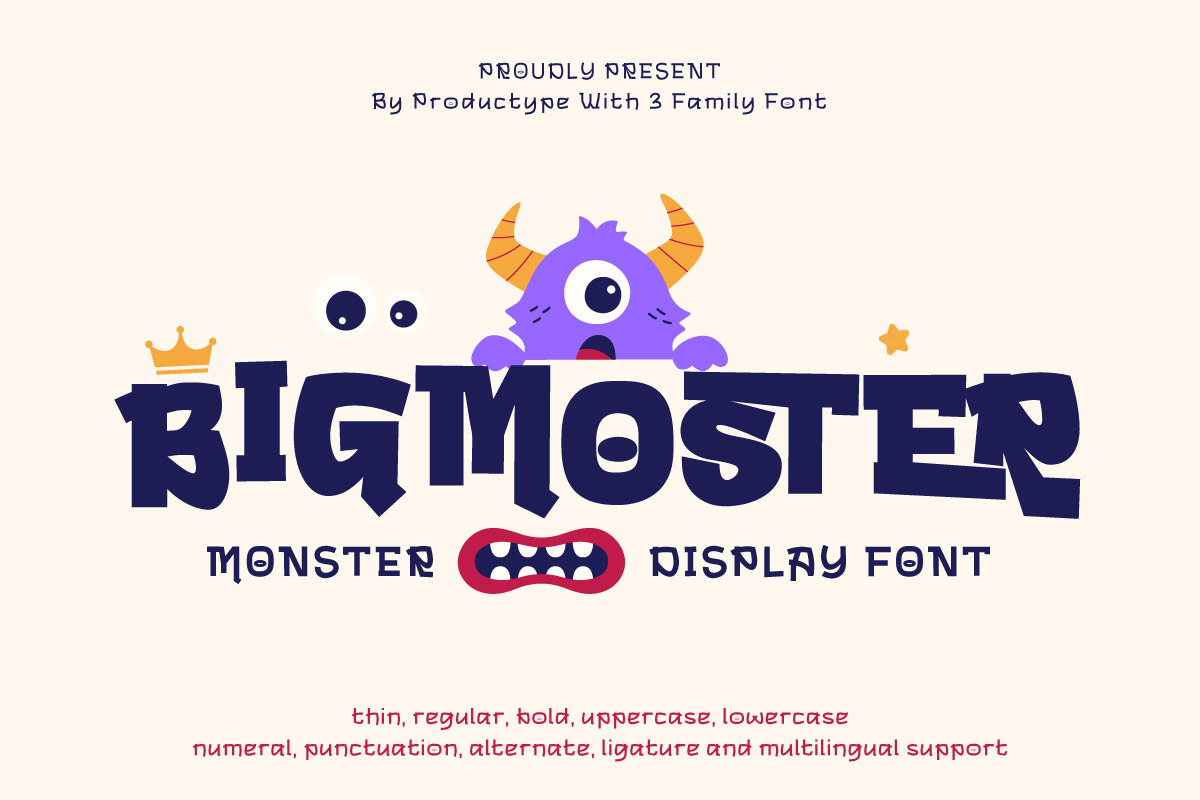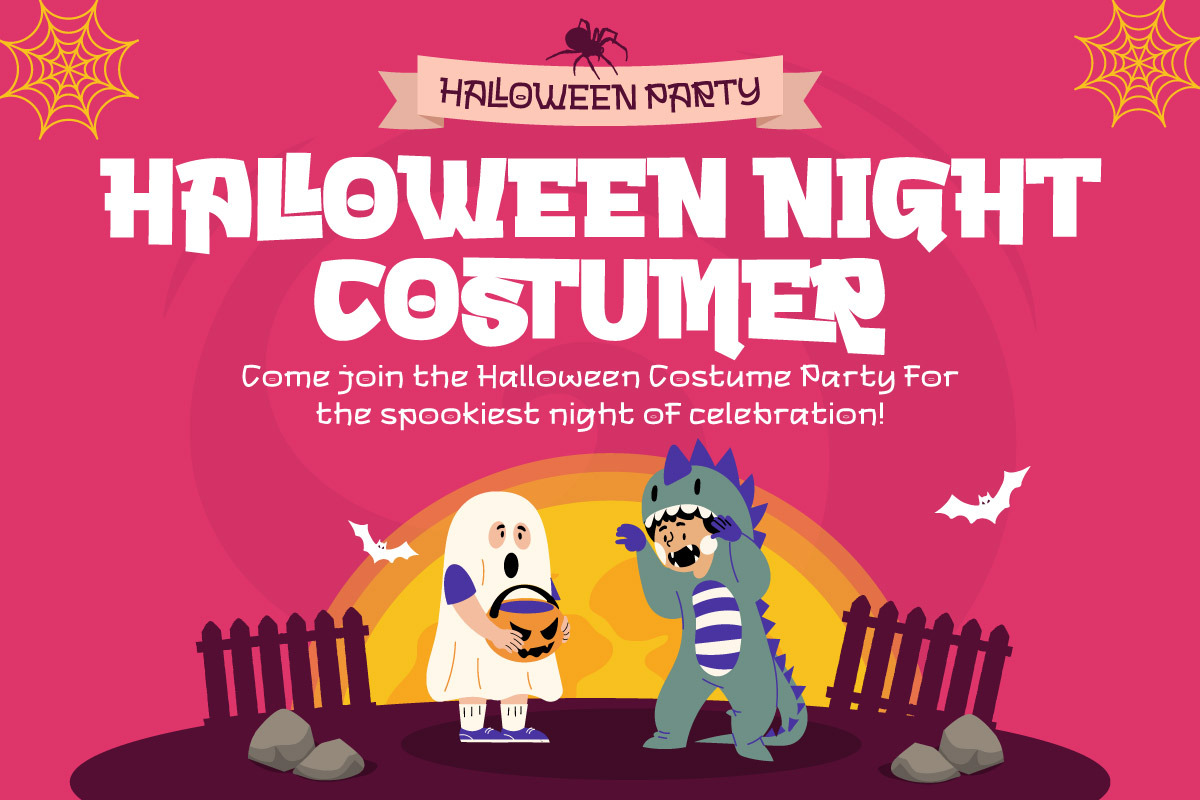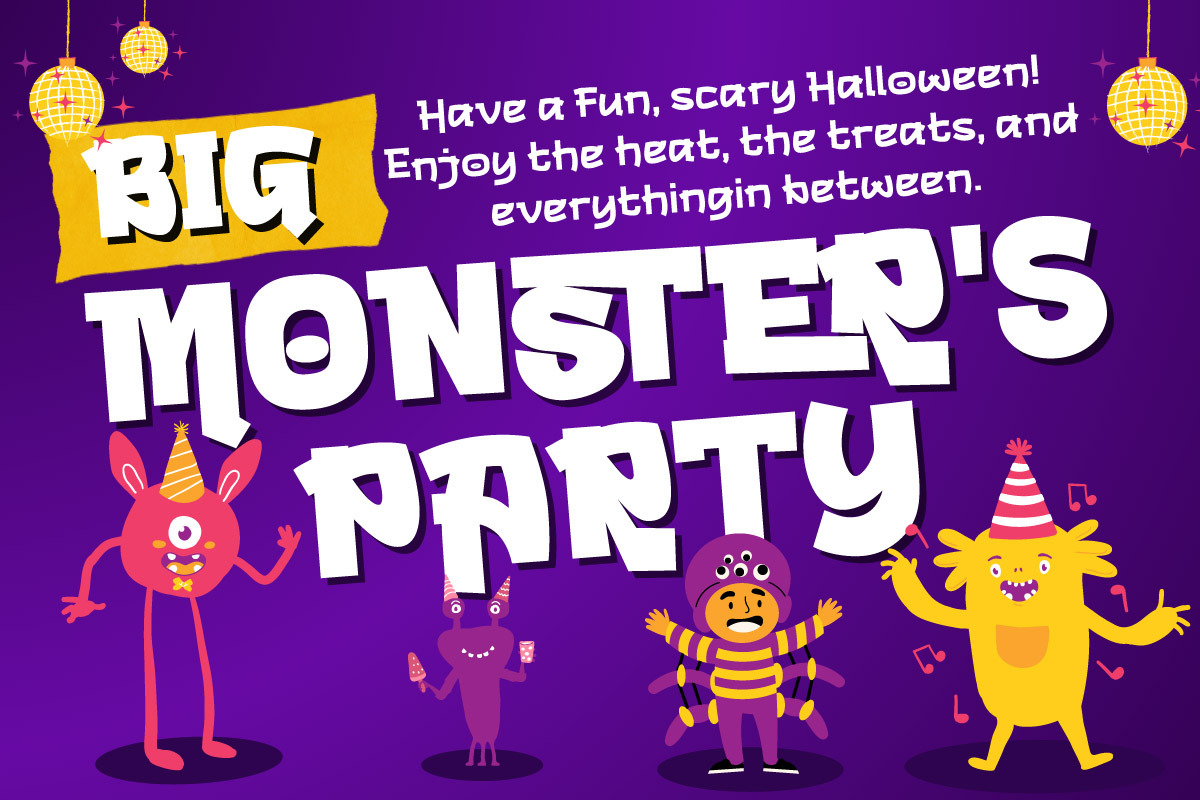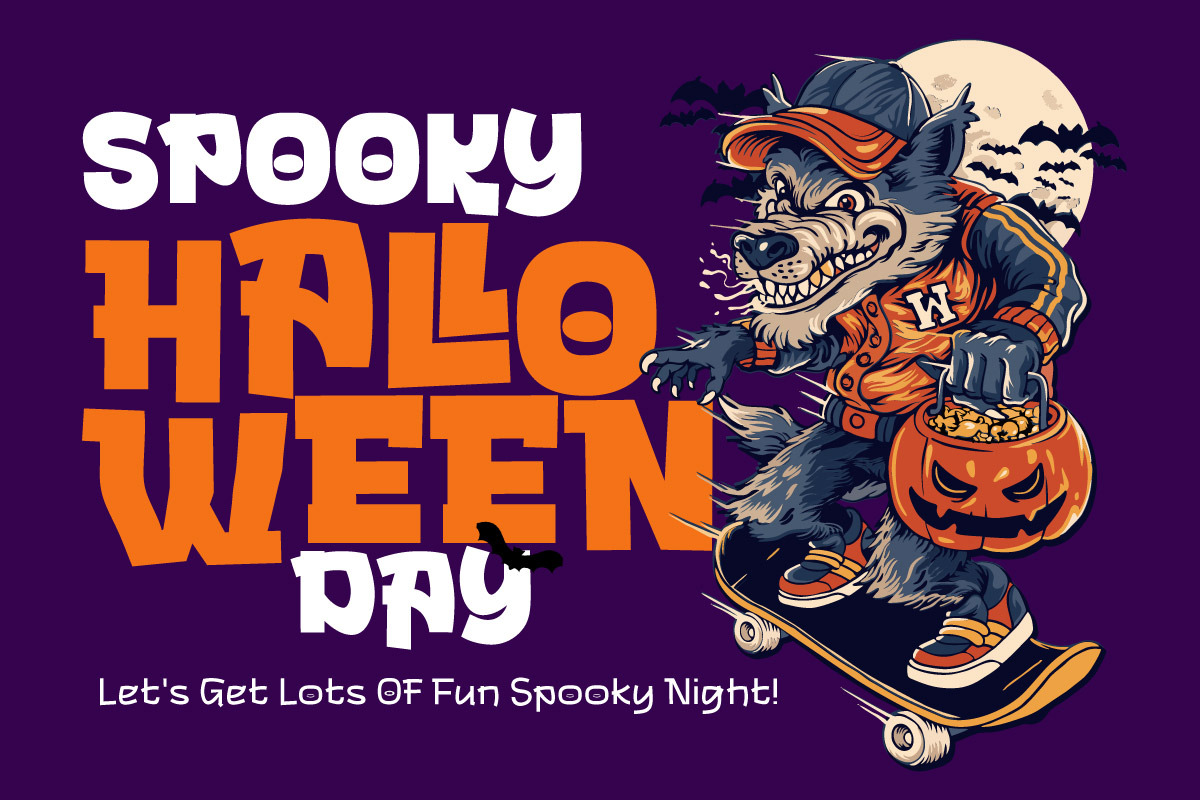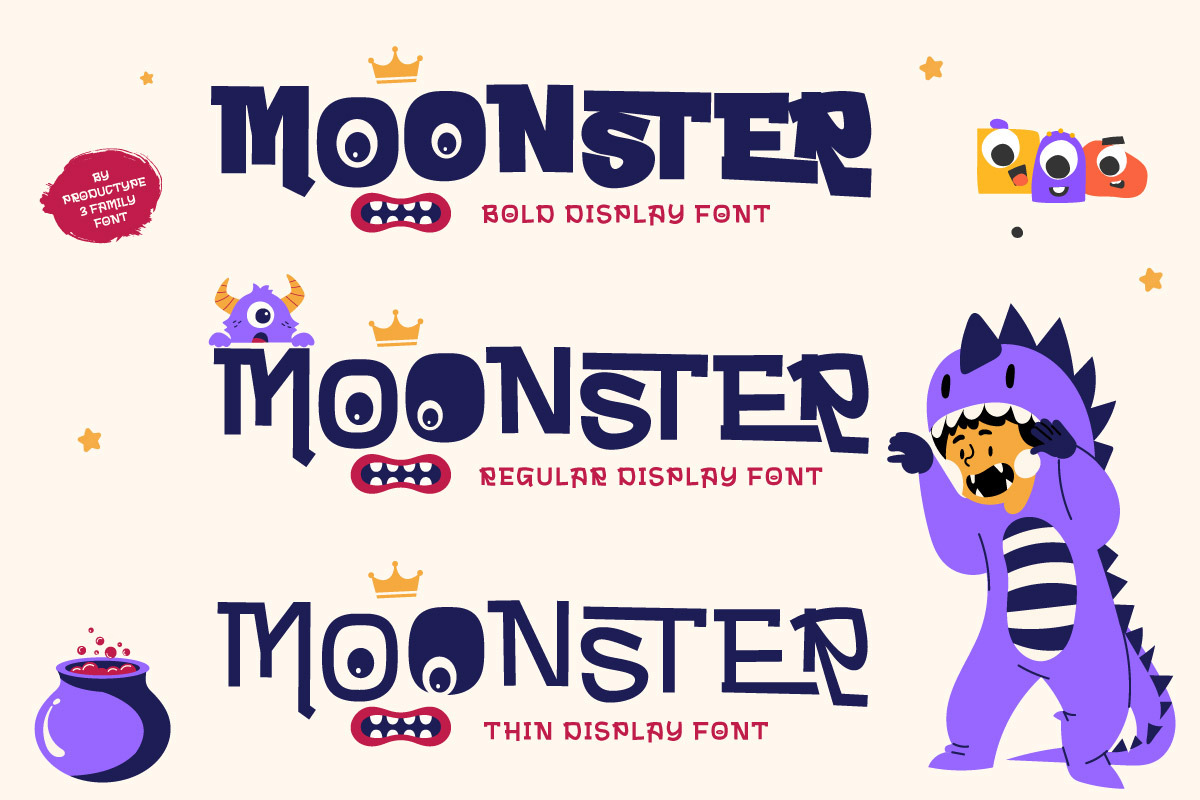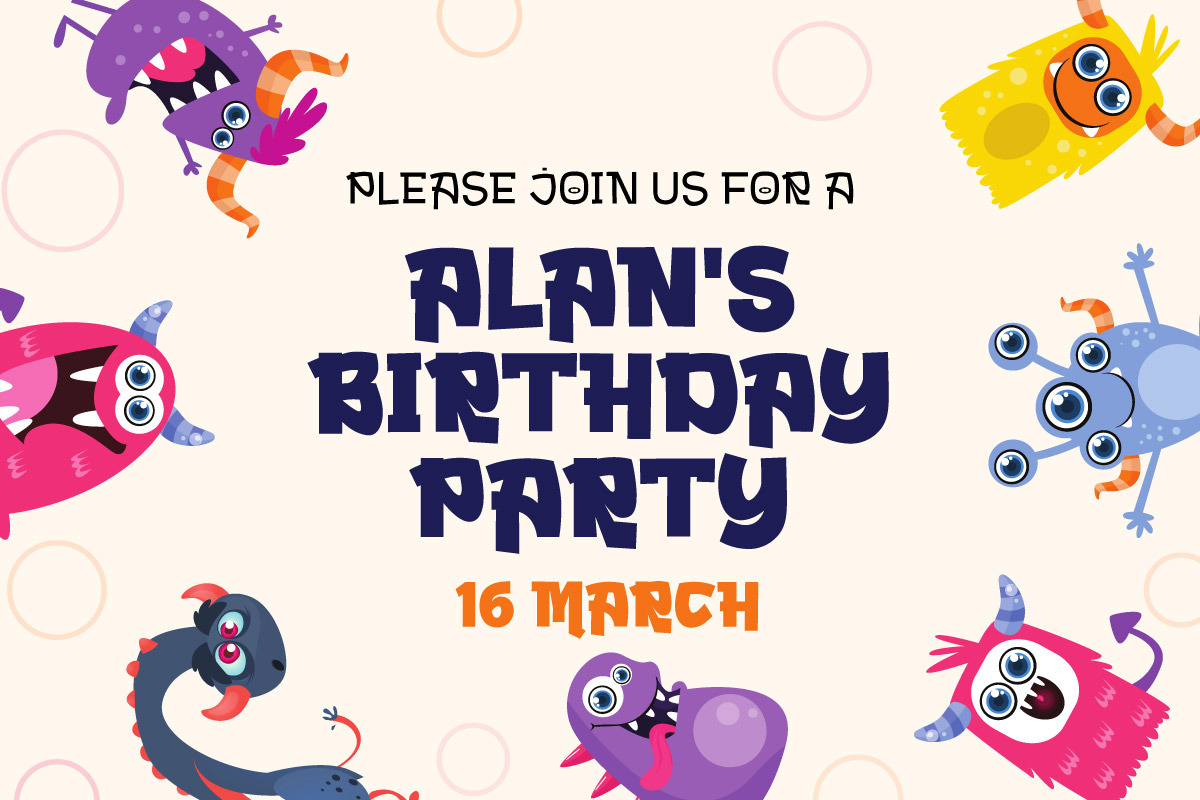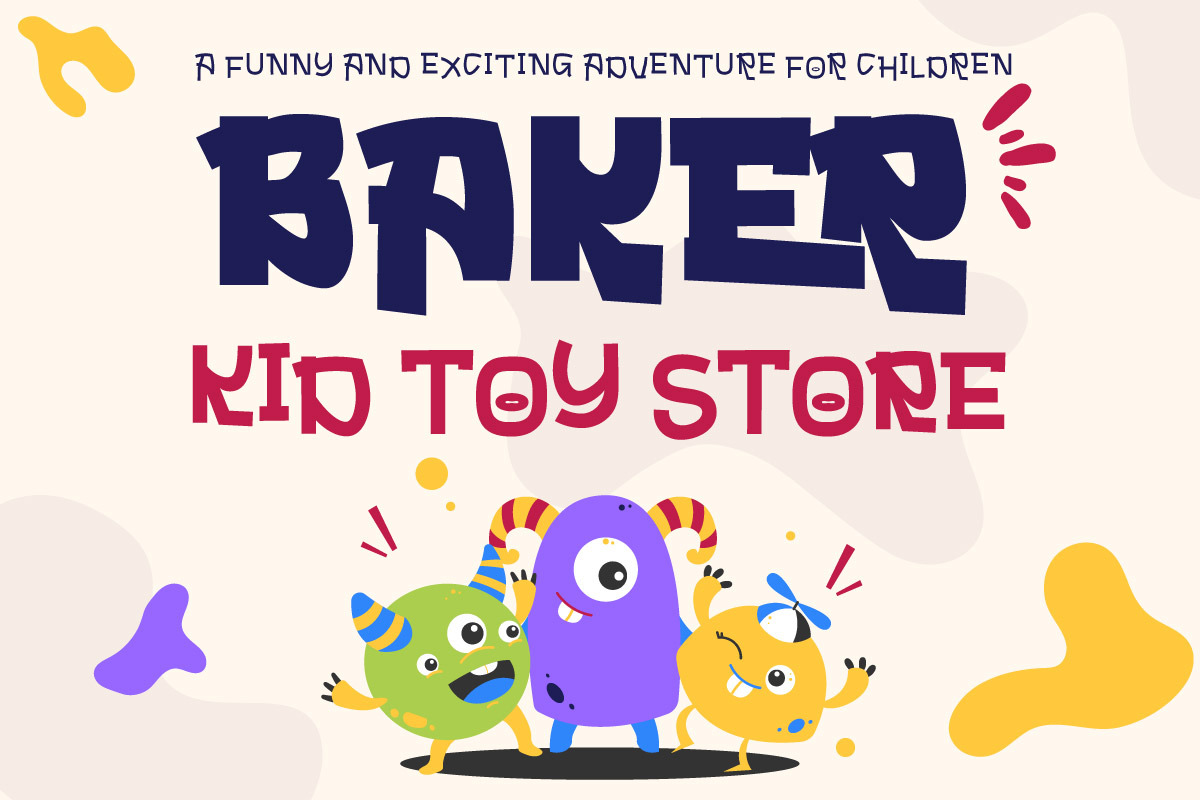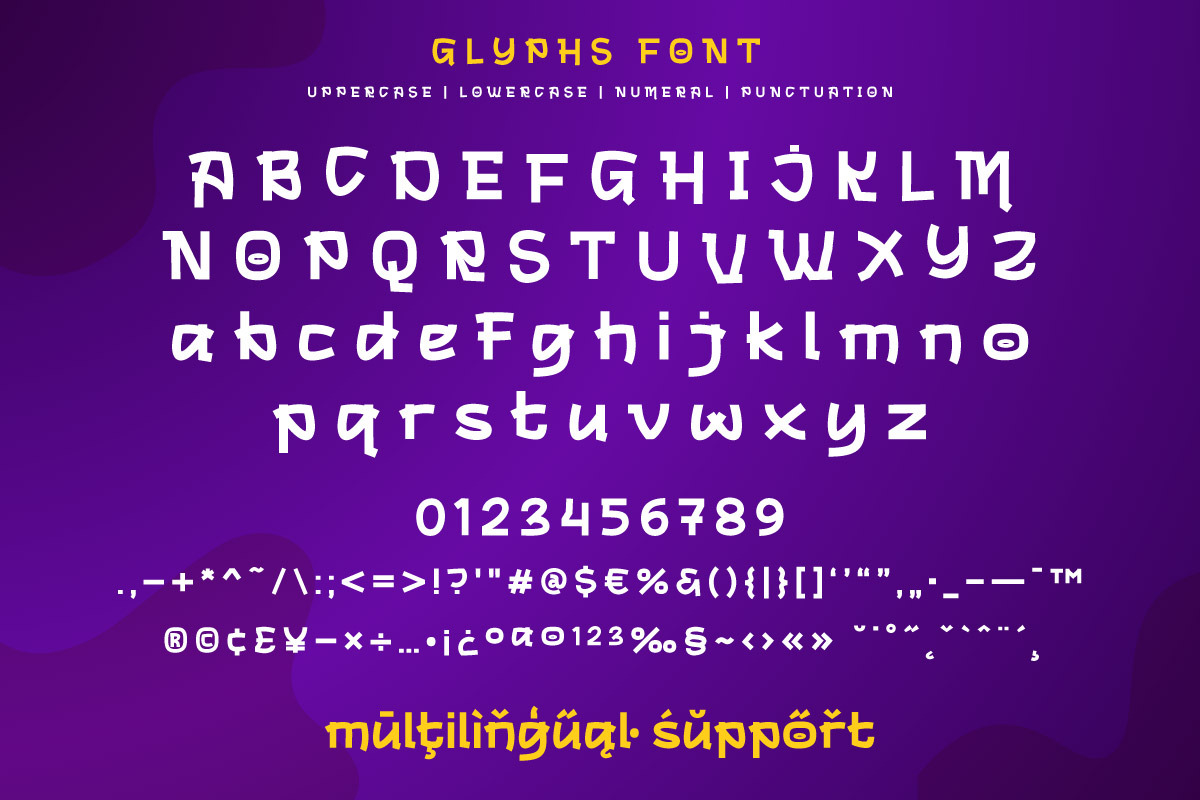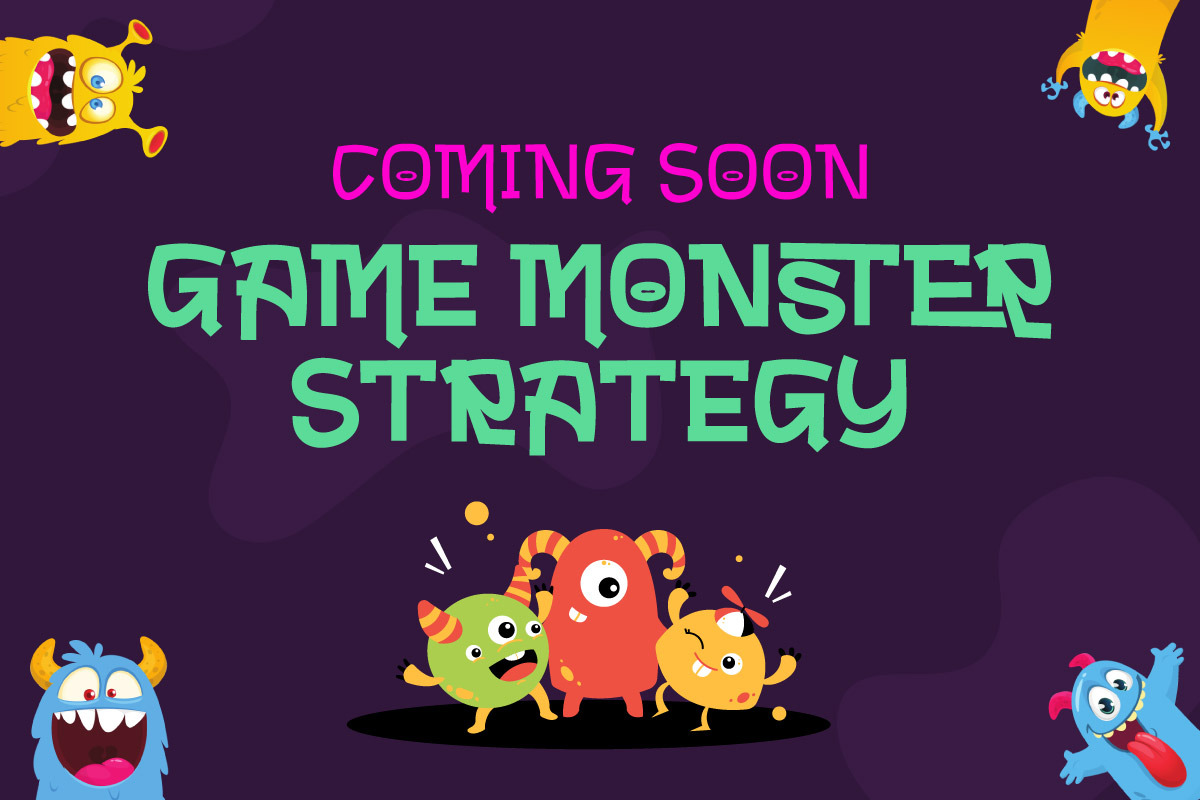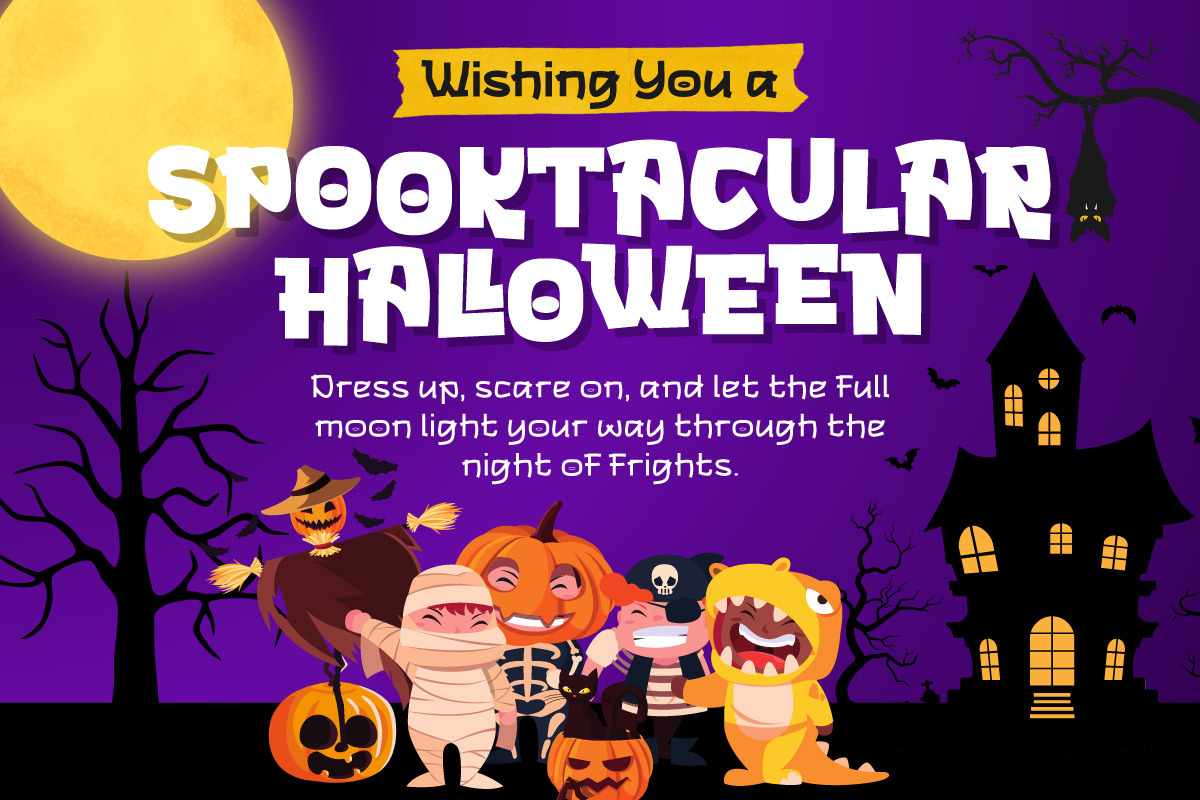
Bigmoster - Display Font
Bigmoster is a fun and cheerful display font designed to capture the playful spirit of childhood. Its rounded shapes and friendly curves make it perfect for kids’ toys, educational products, games, and playful branding. Whether used for packaging, logos, or children’s book covers, Bigmoster instantly brings joy and imagination to every design.
This font comes in three styles — Thin, Regular, and Bold, giving designers flexibility to create layered, vibrant typography. The Thin version adds a soft and gentle look, Regular provides balance and readability, while Bold makes your message pop with energy and confidence.
Bigmoster’s lively character design makes it suitable for toy stores, daycare centers, children’s clothing brands, and playful digital products. With multilingual support and easy readability, this font helps you express creativity while maintaining a professional, friendly tone. Make your design shine with Bigmoster — a font that celebrates fun, color, and childhood wonder!